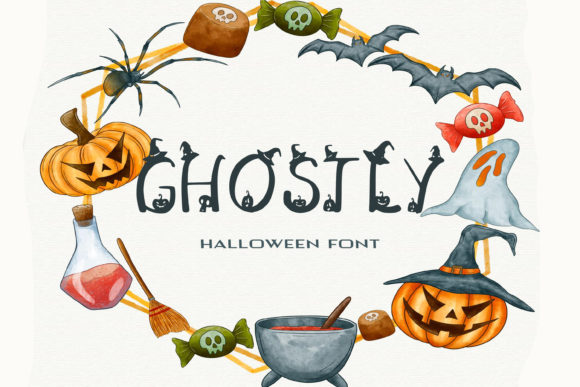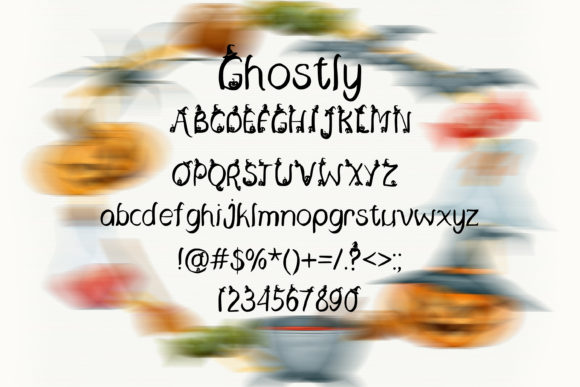
Ghostly Font
About Ghostly Font
Ghostly is a fun handwritten font. It features unique characters with with hats that will look amazing in your Halloween projects!